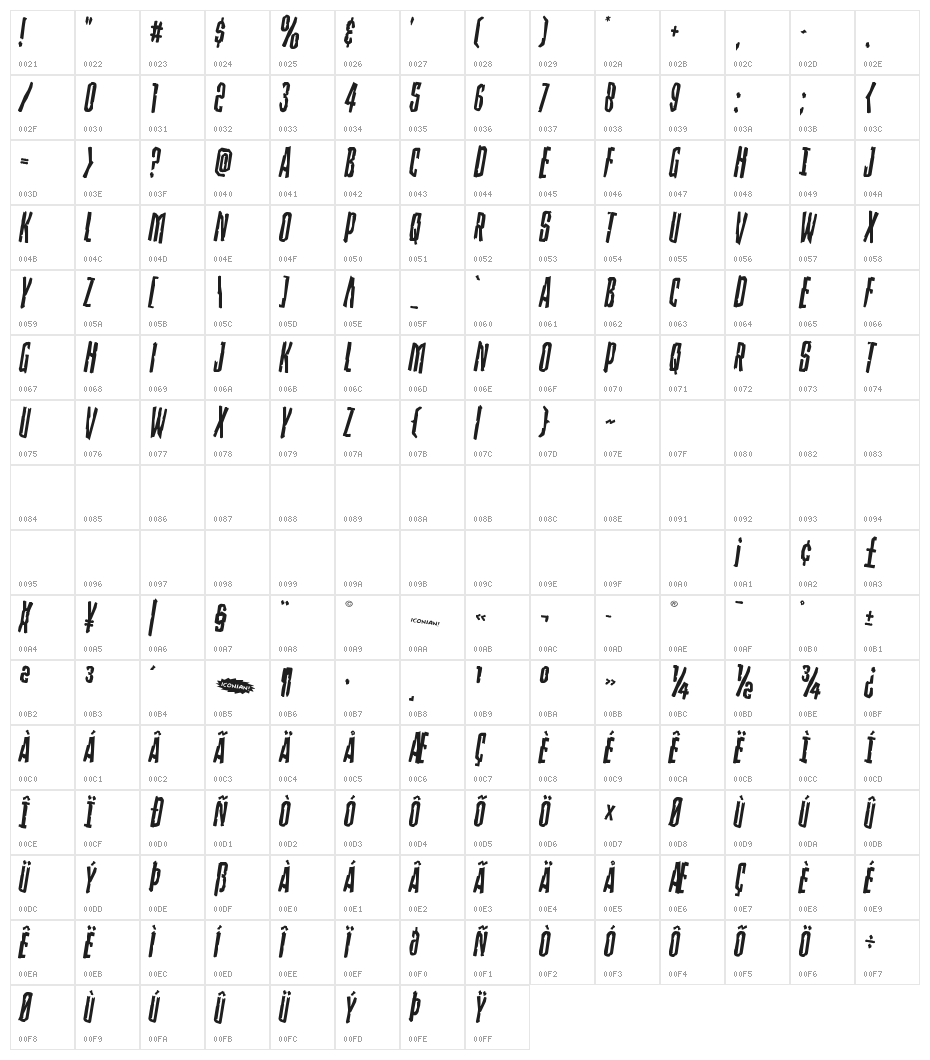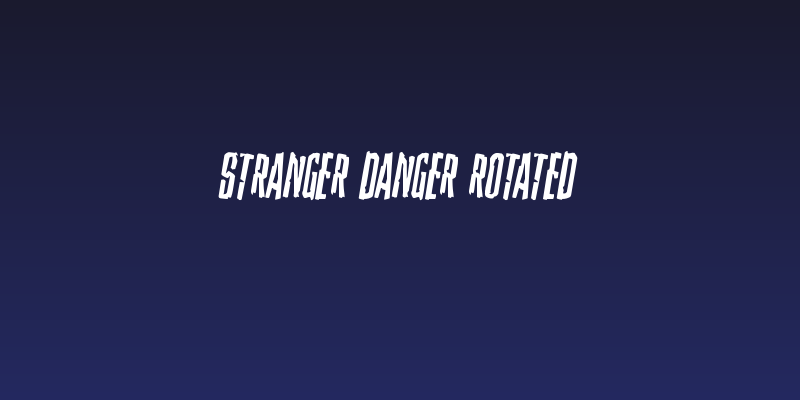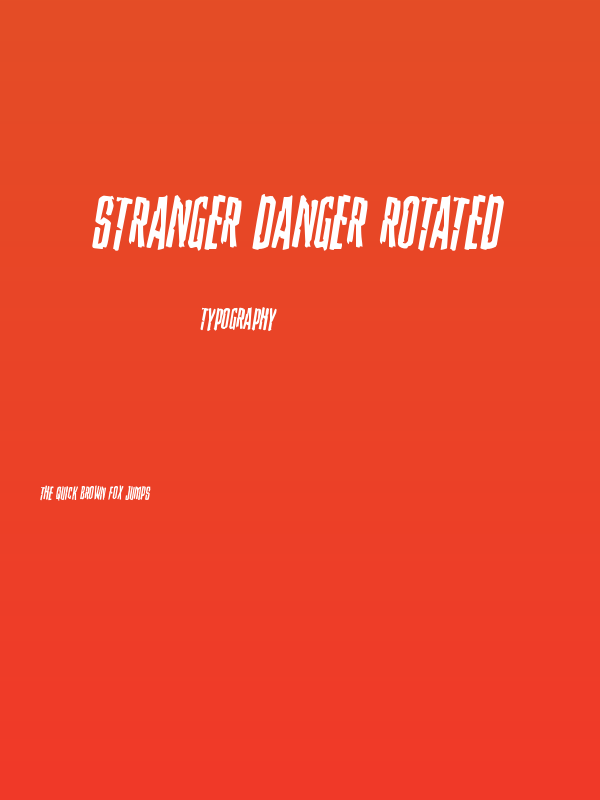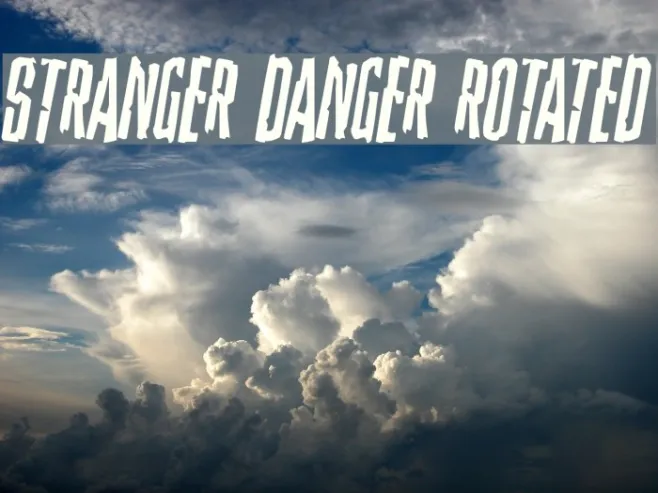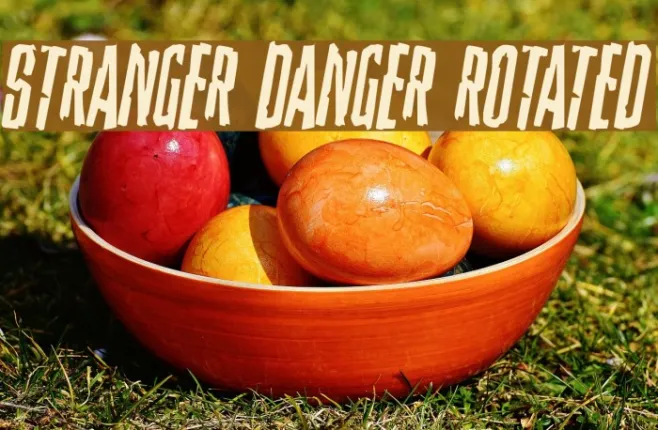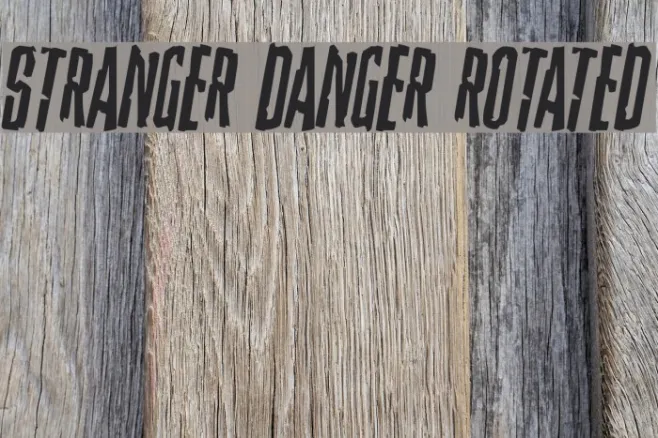
Stranger Danger Rotated Font
Stranger Danger Rotated Description
This font features a bold and dynamic style with a distinct slant, giving it a sense of movement and energy. The characters are thick and angular, with sharp edges and a slightly condensed form. This design choice creates a striking visual impact, making it ideal for attention-grabbing headlines or titles. The uppercase and lowercase letters maintain a consistent style, with the numbers and special characters following suit. The overall appearance is modern and edgy, suitable for projects that require a strong and assertive typeface.
| Proposed Projects | Ideal for posters, branding, sports team logos, and dynamic advertising campaigns. |